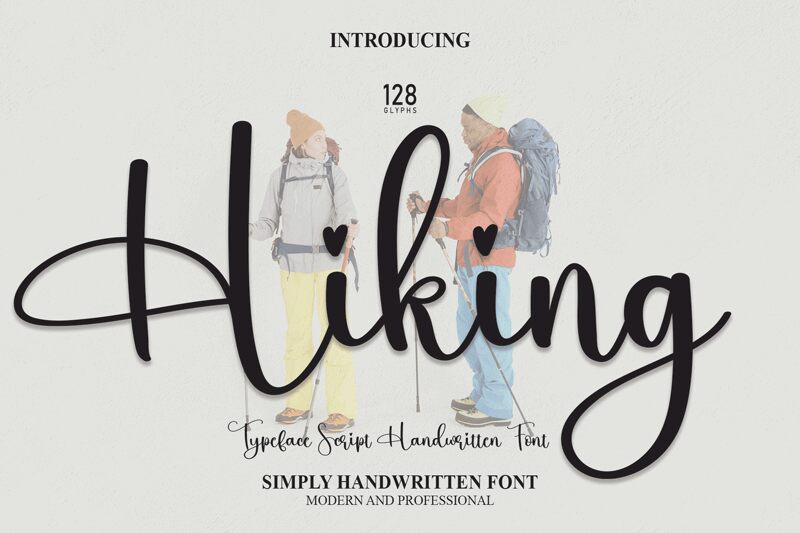
Hiking
Hiking, a delightful creation by scratchones, is a charming and whimsical font that exudes cuteness in its calligraphic style. With its semi-light weight, this font adds an elegant touch to any project. Perfect for creating invitations, greeting cards, and baby announcements, Hiking brings a playful yet sophisticated feel to your designs. Whether you're designing children's book covers or adding a touch of sweetness to your branding materials, this adorable font will surely captivate hearts and leave a lasting impression. Elevate your projects with the enchanting allure of Hiking!
the latest style letters are perfect for wall displays, wedding invitations, social media post logos, advertisements, product packaging, product designs, labels, photography, watermarks, invitations, stationery, and any project that requires taste handwriting.